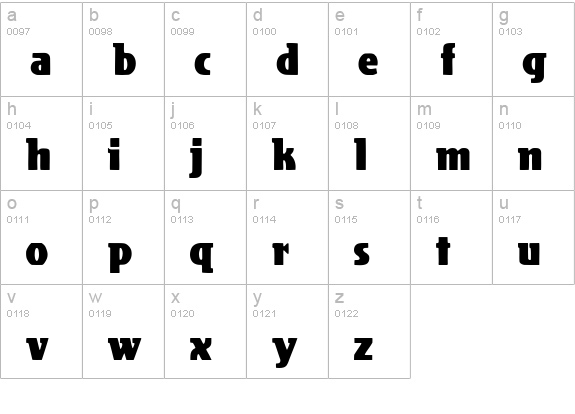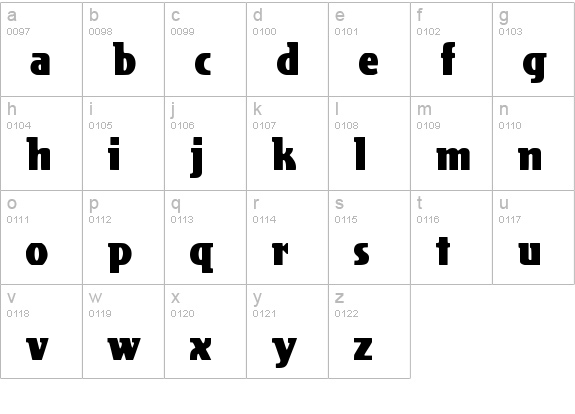
Cotran Display SSi Font Details
Cotran Display SSi font is a modern and stylish typeface that exudes elegance and sophistication. With its sleek lines and bold design, this font is perfect for creating eye-catching headlines, logos, and branding materials. The versatility of Cotran Display SSi font makes it suitable for a wide range of design projects, from print materials to digital designs. What's even better is that Cotran Display SSi font is available for free download at FontsMarket.com. You can easily access this stunning font and start incorporating it into your projects right away. Don't miss out on the opportunity to enhance your designs with the beauty and impact of Cotran Display SSi font. Download it now and elevate your design game to the next level.